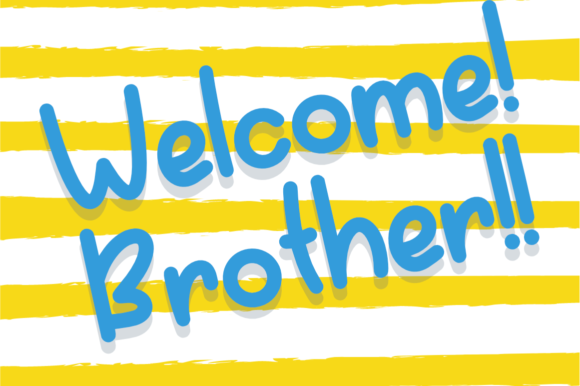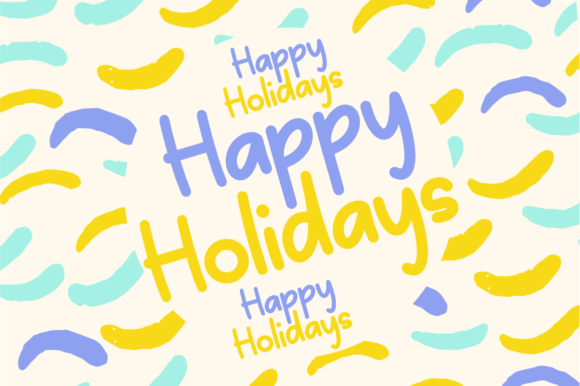
Comic Kans Font
db-ku.com - Script & Handwritten -- Comic Kans is a cute script font. This versatile script font has a wide range of applications ranging from greeting cards to kids’ crafts and is guaranteed to add a sweet touch to your next design.